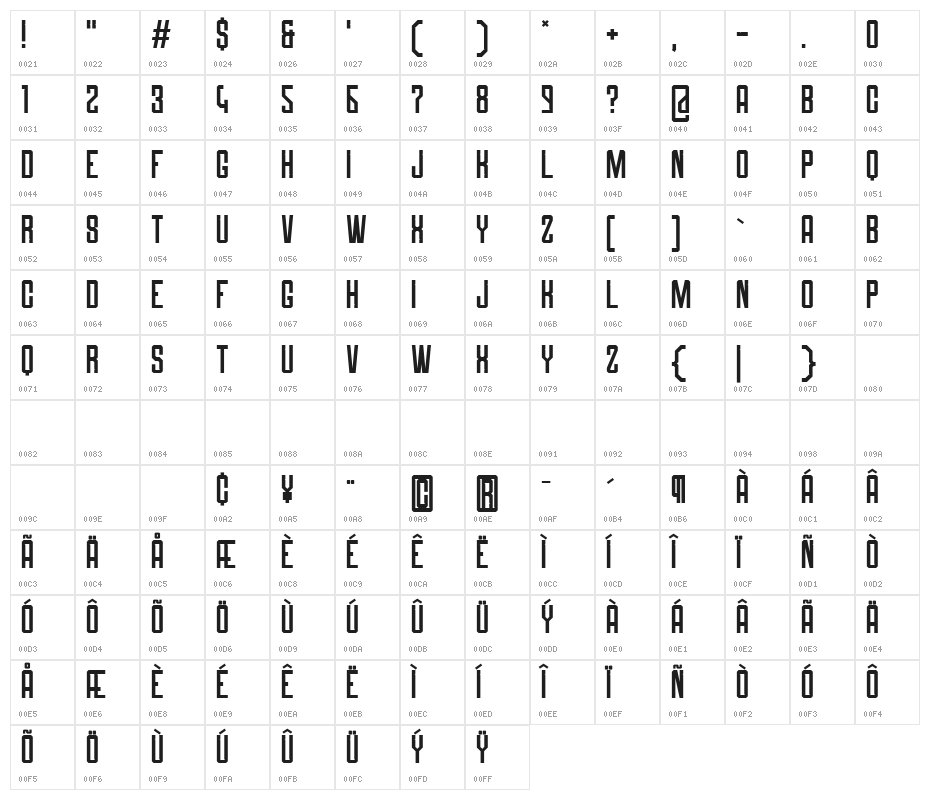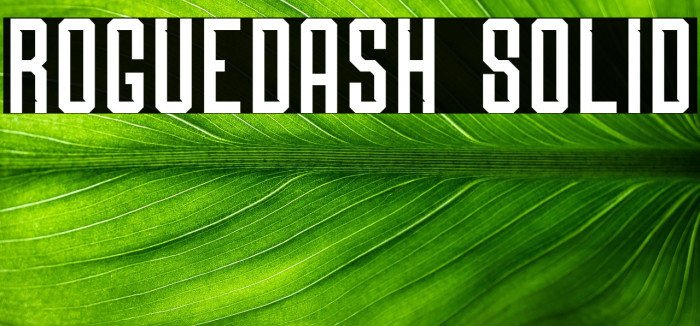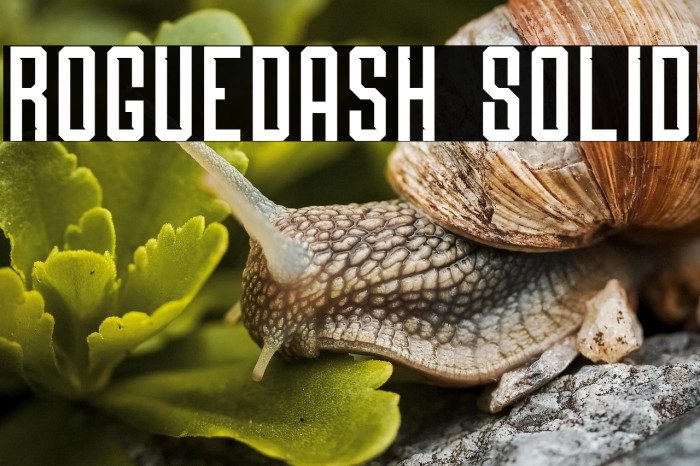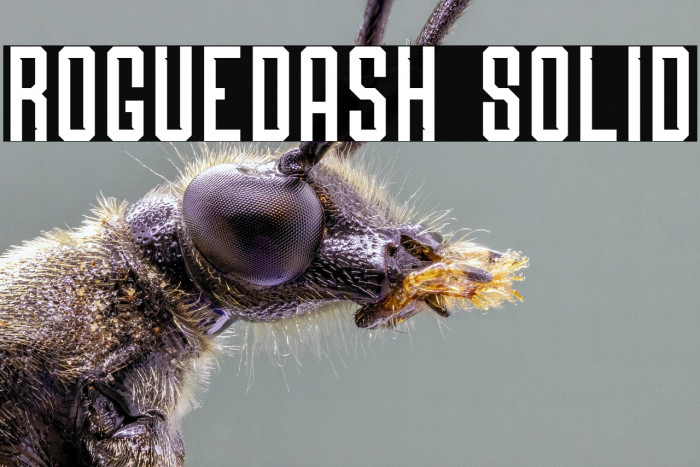
Roguedash Solid Font
Roguedash Solid Description
This font features a bold and geometric design with strong, angular lines and a modern aesthetic. The uppercase letters are tall and narrow, giving a condensed appearance, while the lowercase letters maintain a consistent style with slightly less height. The numerals are distinct and align well with the overall geometric theme. Special characters are designed to complement the boldness of the letters, making them suitable for attention-grabbing text. The font's solid structure and uniform stroke width contribute to its impactful presence, ideal for display purposes.
| Proposed Projects | Ideal for branding, posters, headlines, and any project requiring a strong visual impact. |